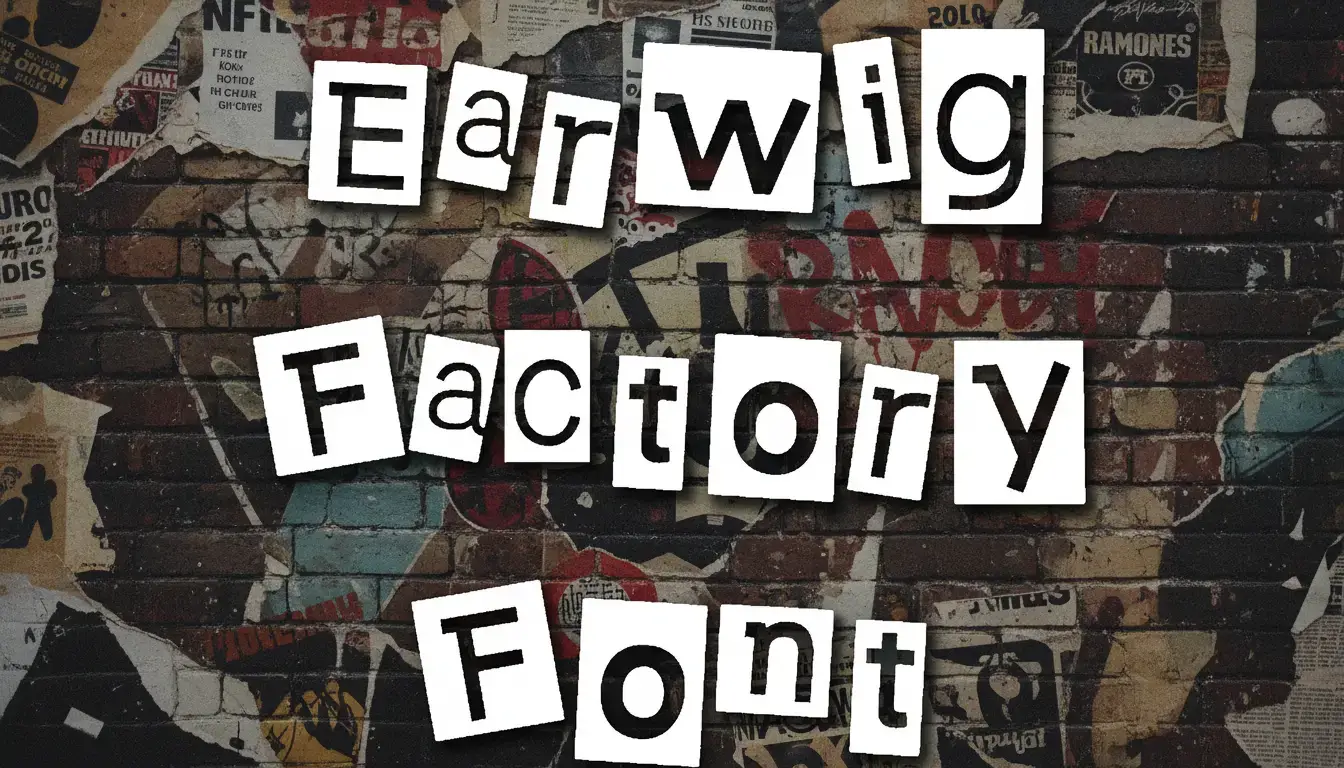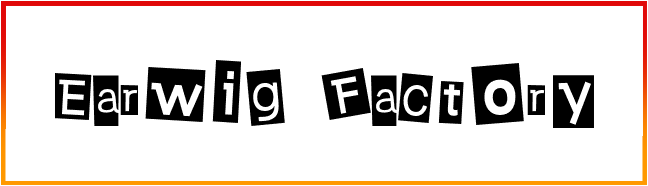
Earwig Factory Font
Earwig Factory
Earwig Factory is a fancy font made by Ray Larabie. It's a decorative display font with plenty of personality, made to grab attention. It's a free download, and you can try it with your own text in the preview above first.
Earwig Factory covers the full alphabet in upper and lowercase, plus all ten numbers, so you can set names, dates and prices without switching fonts. Everyday marks like &, !, ? and @ are there too. Thanks to its accented letters, it also works for Spanish, French, German, Portuguese and Italian, not just English.
Earwig Factory is a natural fit for posters, logos and eye-catching headlines. Use it for one standout word or headline and let simpler fonts handle the rest.
Yes. Earwig Factory includes the accented letters needed for Spanish, French, German, Portuguese and Italian, so it works for more than just English.